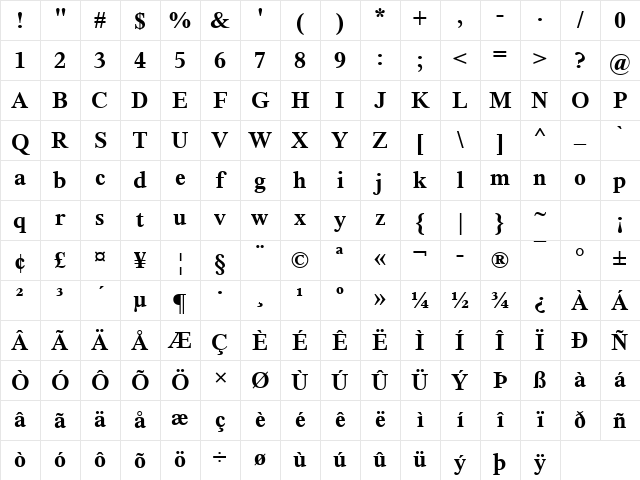
Thorndale Bold
Foundry: Agfa Monotype Corporation
Designer: Agfa Monotype Drawing Office
Design Context for Thorndale
Thorndale is a composed and adaptable typeface that performs quietly and consistently across a wide range of design contexts. Its bold stroke weight gives it real presence on the page.